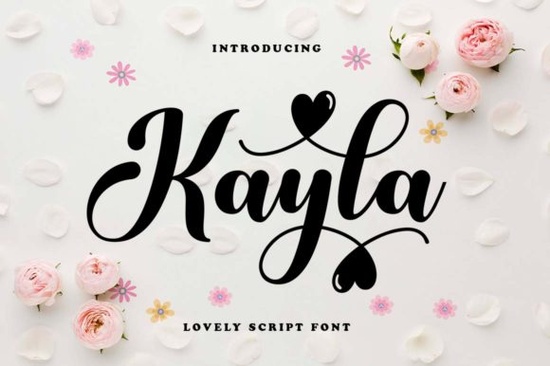
If you’ve been searching for a handwritten font that feels personal, warm, and just a little playful, you might want to take a closer look at Kayla Font. It’s the kind of typeface that doesn’t shout for attention it invites you in. Whether you’re designing greeting cards, branding a small bakery, or putting together custom quotes for print-on-demand products, Kayla adds that human touch without feeling overly fussy.
What makes this font especially handy is its PUA encoding. That means all the extra glyphs, swashes, and alternate characters are easy to access no digging through character maps or installing extra files. If you’ve ever struggled with fonts that hide their best features behind technical hurdles, you’ll appreciate how straightforward Kayla is to use.
Who is Kayla Font best suited for?
This isn’t just another script font for wedding invitations (though it works beautifully there too). Think of it as your go-to for projects that need personality:
- Small business owners creating packaging, labels, or social media graphics
- Crafters making vinyl decals, embroidery designs, or sublimation prints
- Teachers designing classroom materials or parent handouts
- Print-on-demand sellers looking for something fresh but not trendy
- Hobbyists who just enjoy making things that feel handmade
It pairs well with clean sans-serifs like Montserrat for contrast, or you can layer it with more formal scripts like Samantha Calligraphy when you want to mix elegance with approachability. Even if you’re pairing it with something quirky like This Mate, Kayla holds its own without clashing.
How does Kayla compare to other handwritten fonts?
Handwritten fonts come in all flavors some are stiff, some are chaotic, others try too hard to be “artsy.” Kayla sits comfortably in the middle. It’s legible enough for body text in short bursts (think product tags or captions), but stylish enough to headline your next Instagram post.
If you’ve used Amazing Teacher before, you know how useful a friendly, readable script can be in educational or kid-focused projects. Kayla shares that warmth but leans slightly more romantic perfect for Valentine’s Day designs, baby announcements, or boutique branding.
Unlike fonts that require you to manually switch between stylistic sets, Kayla’s alternates and ligatures work intuitively. Most design programs (like Adobe Illustrator, Canva, or Affinity) will let you toggle those features with OpenType support no plugins needed.
What kinds of projects work best with Kayla?
Here are a few real-world uses we’ve seen designers love:
- Custom quote mugs and tote bags the rounded letters look great even when scaled down
- Wedding signage and place cards soft curves feel inviting, not stiff
- Children’s book titles or chapter headers playful but not childish
- Social media templates especially for lifestyle brands or handmade shops
- Product packaging for artisan goods soap, candles, baked treats, etc.
One user even used it to design chalkboard-style menu boards for her café the natural flow of the letters made each item feel freshly written, not mass-produced.
Is Kayla Font worth adding to your collection?
You can check out the full character set and download samples directly here: Kayla Font.
Quick tips before you start using Kayla
- Test readability at small sizes while it’s clear, very tiny uses (like fine print) might need spacing tweaks
- Use sparingly with all-caps the lowercase forms are where Kayla really shines
- Pair with simple backgrounds busy patterns can distract from its delicate strokes
- Enable OpenType features in your design software to unlock swashes and alternates automatically